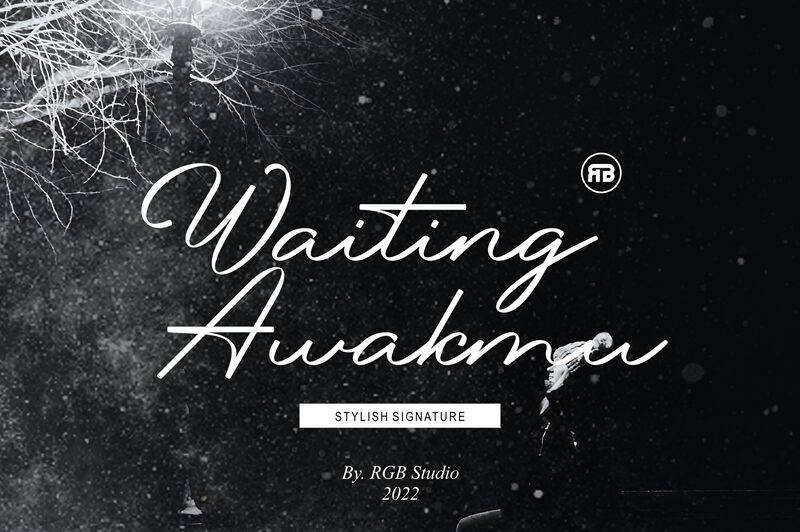
Waiting Awakmu, crafted by RGB Studio, is a handwritten font that exudes elegance with a touch of whimsy. Its light strokes and flowing curves lend it an air of casual sophistication, making it seem as though each character has been personally scribed with care. The font's charm lies in its ability to straddle the line between formal and playful, ensuring that its application can be as diverse and dynamic as its appearance.
Perfect for invitations, branding, or any project that requires a personal touch, Waiting Awakmu brings warmth and authenticity to the table. Its handwritten quality suggests approachability and friendliness while maintaining an upscale vibe. Whether you're creating something for business or pleasure, this font is adaptable enough to convey your message with both style and substance.